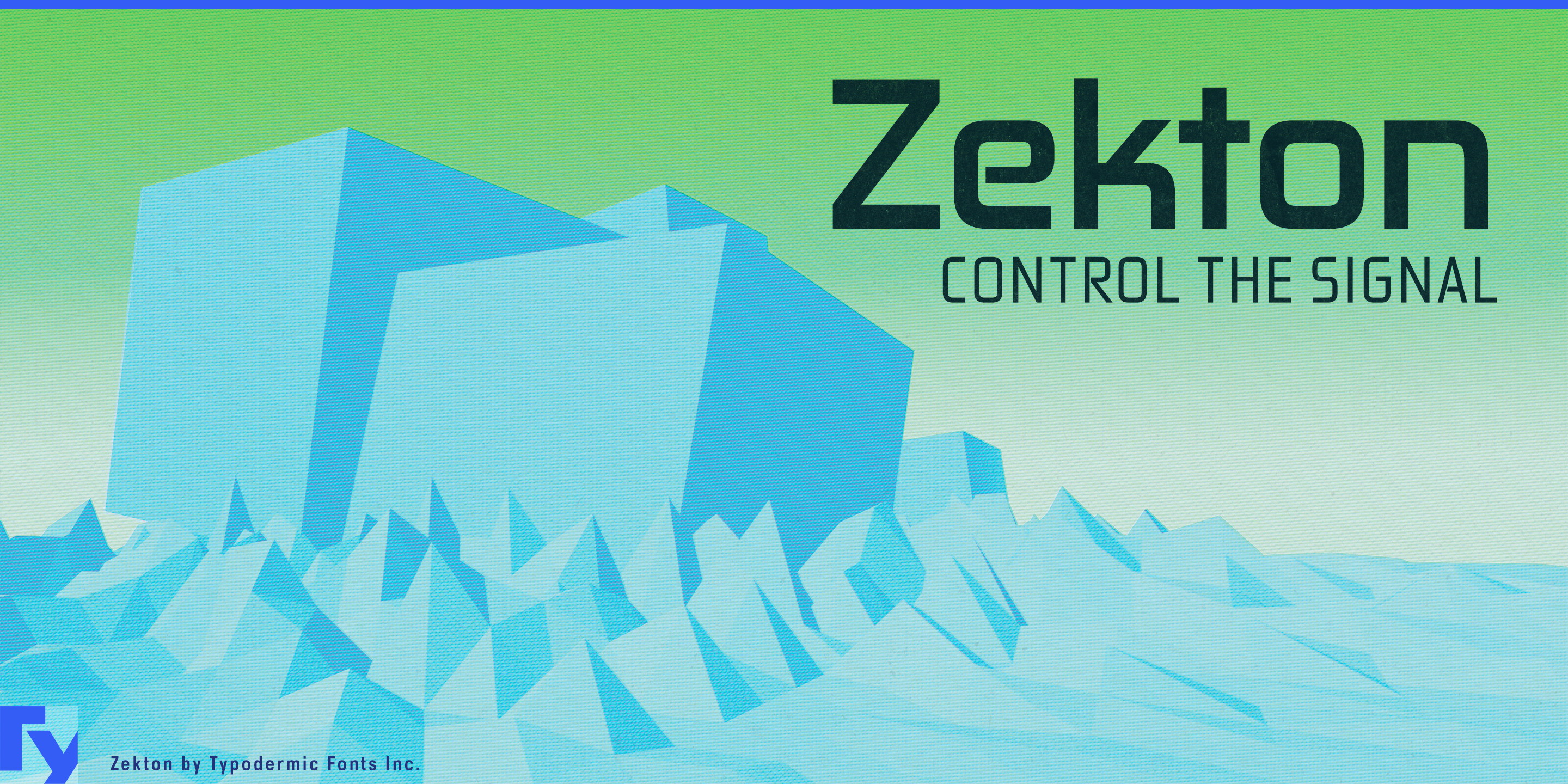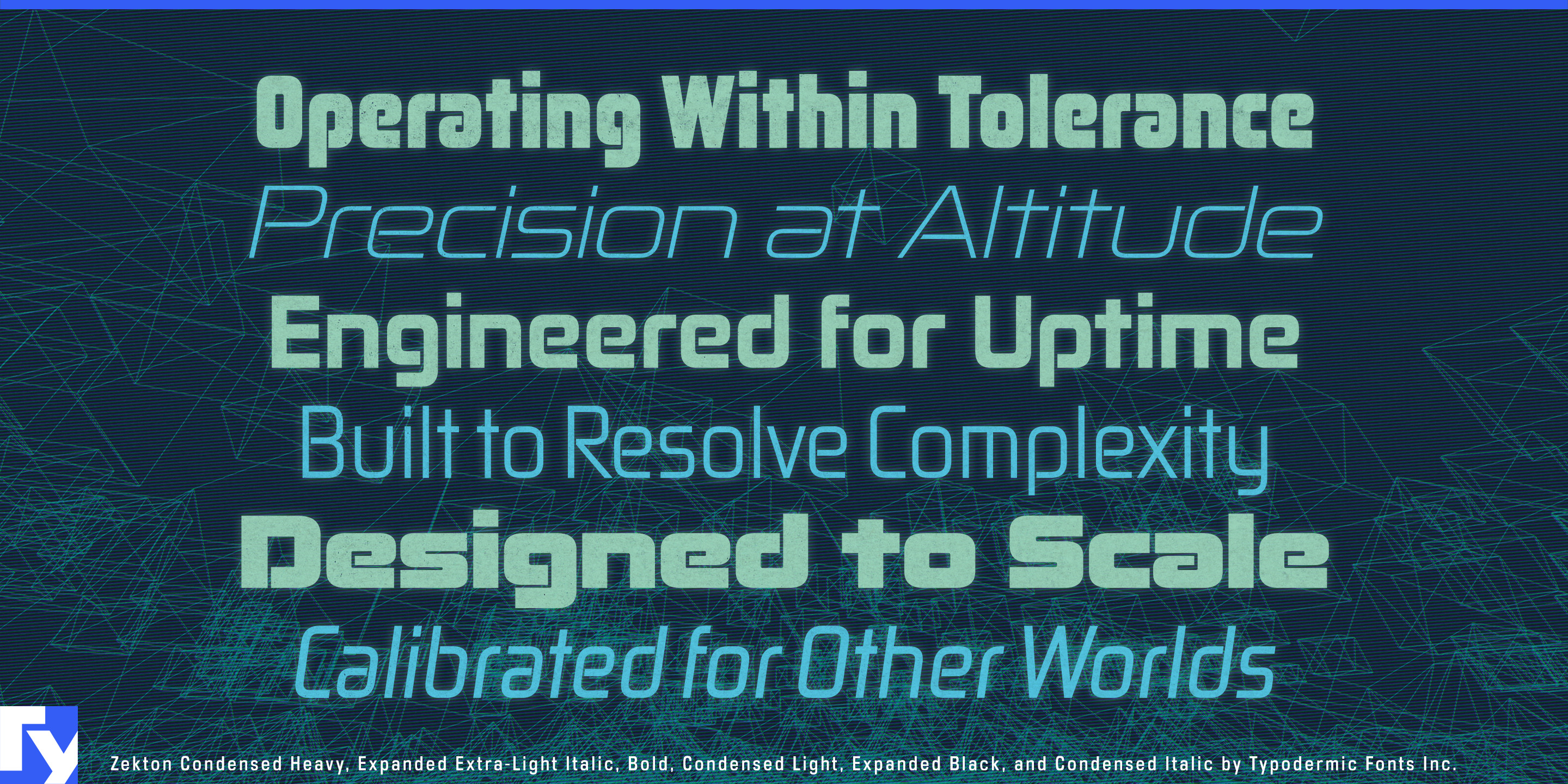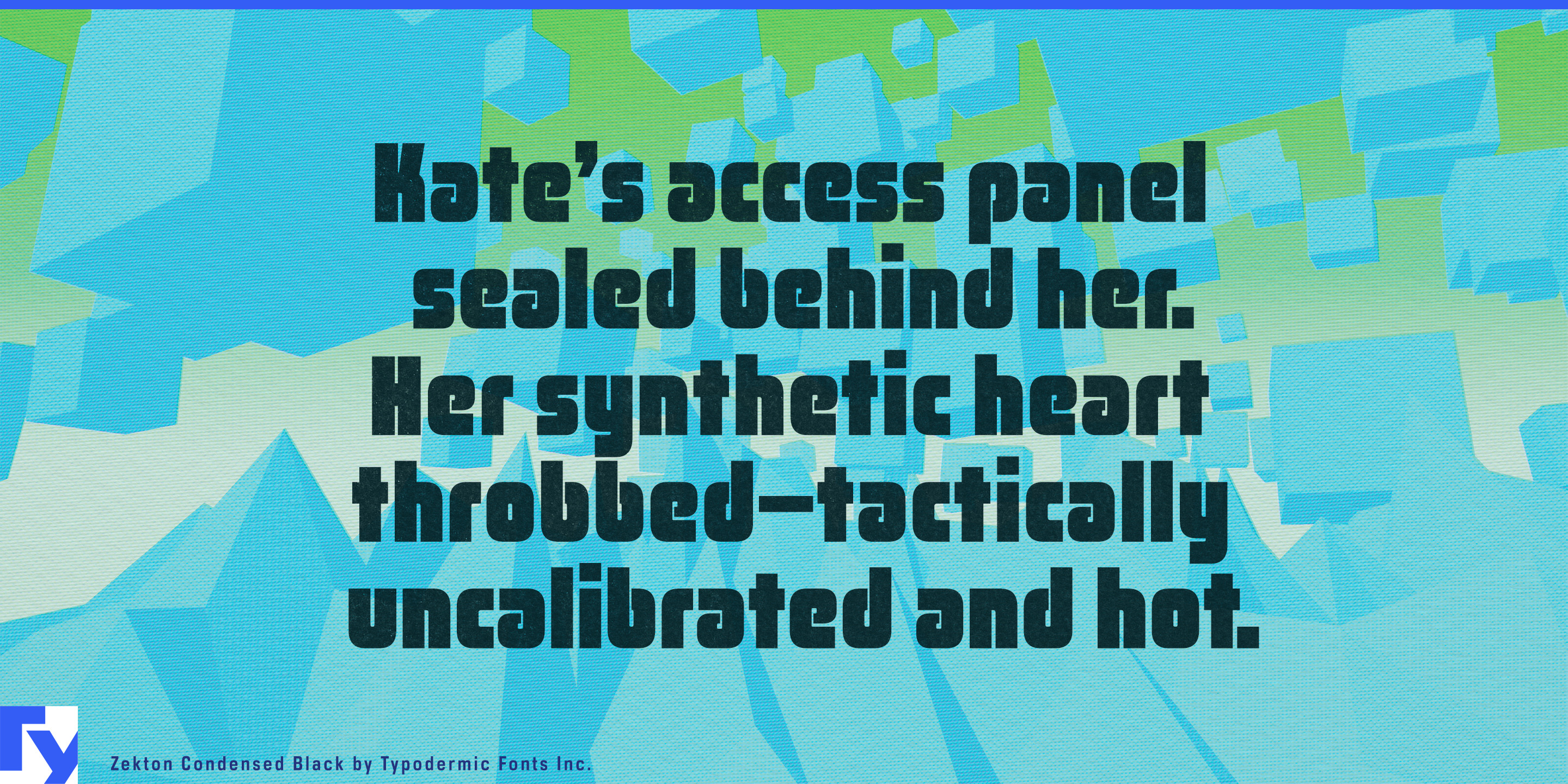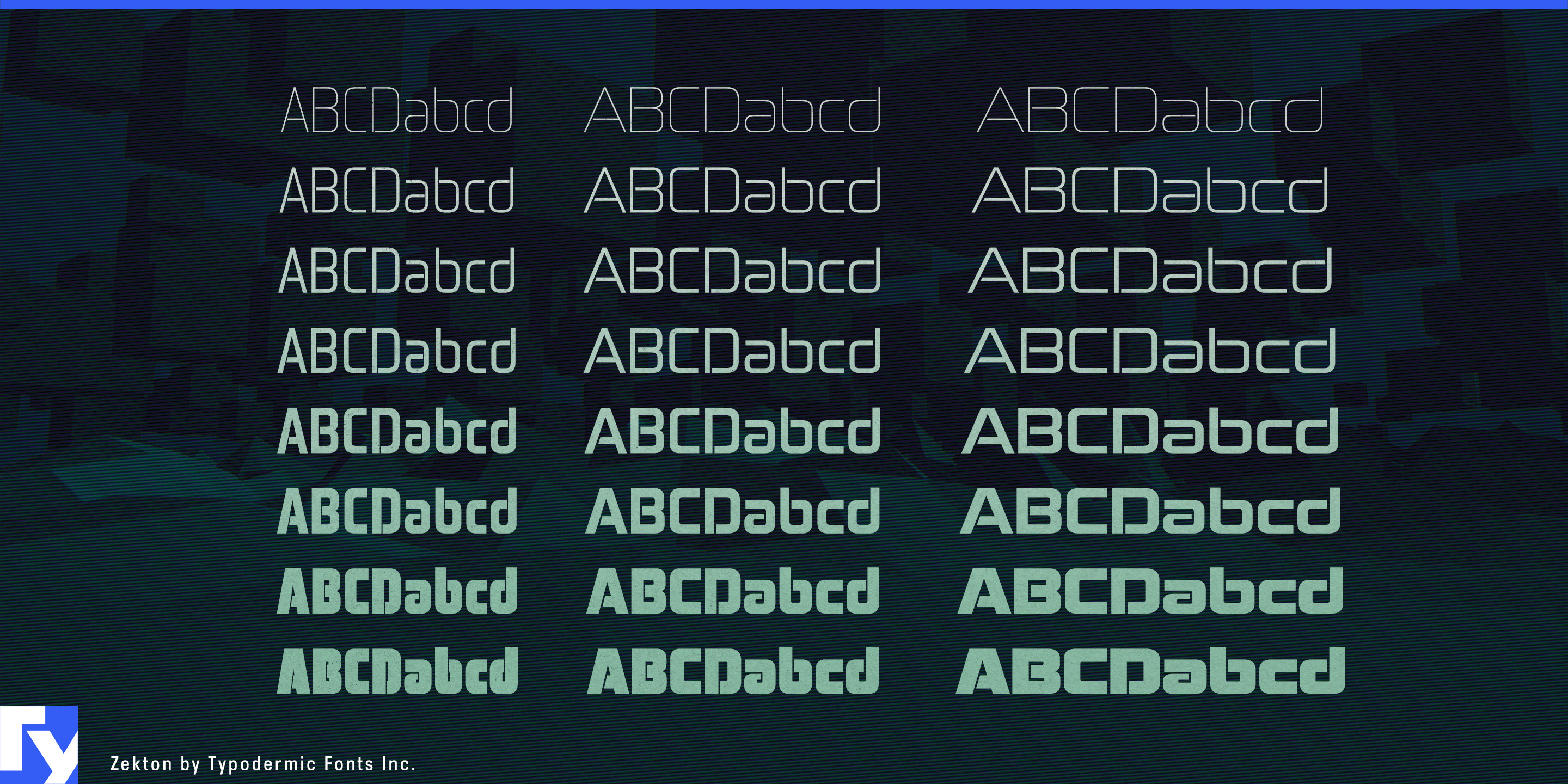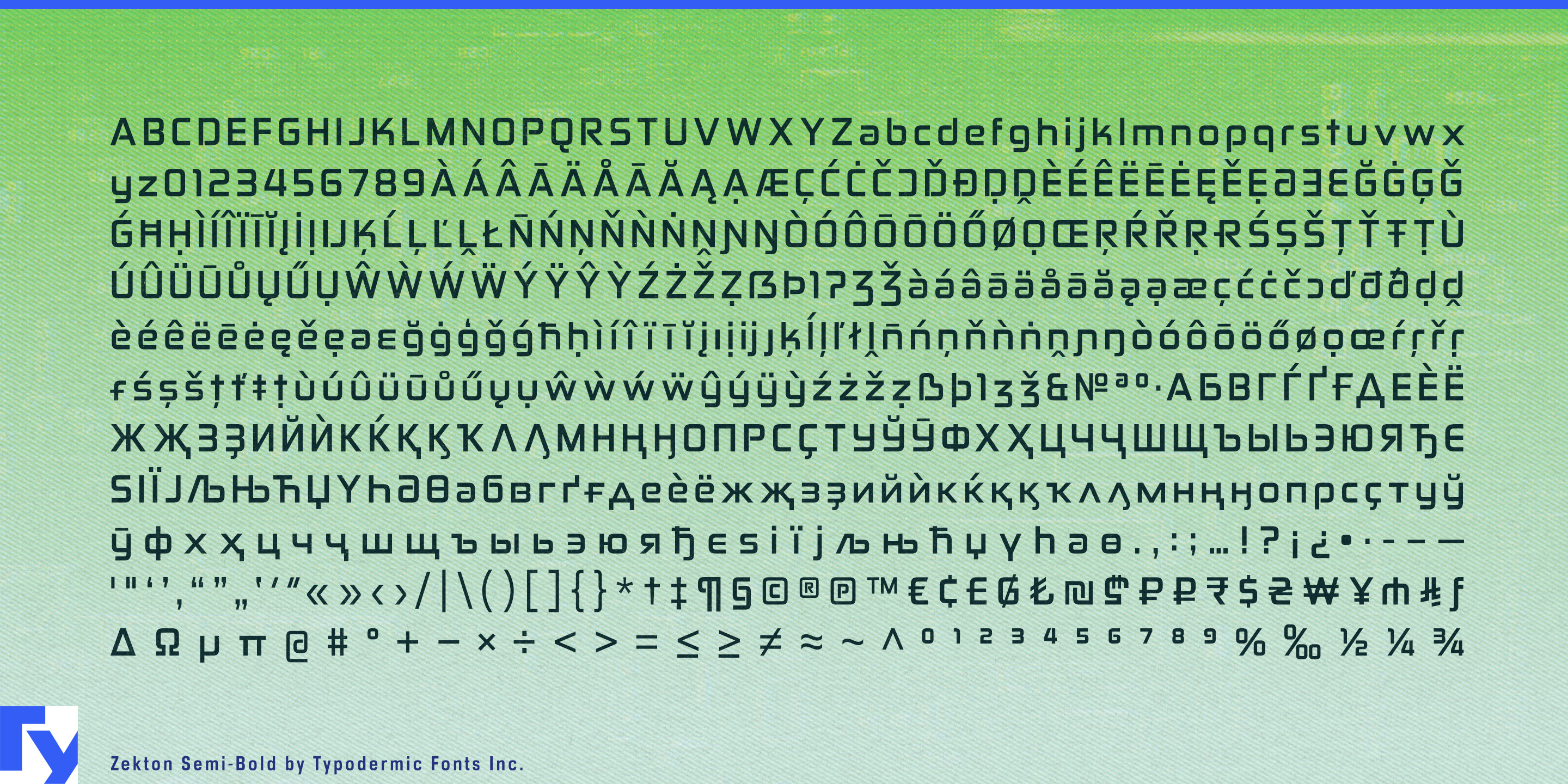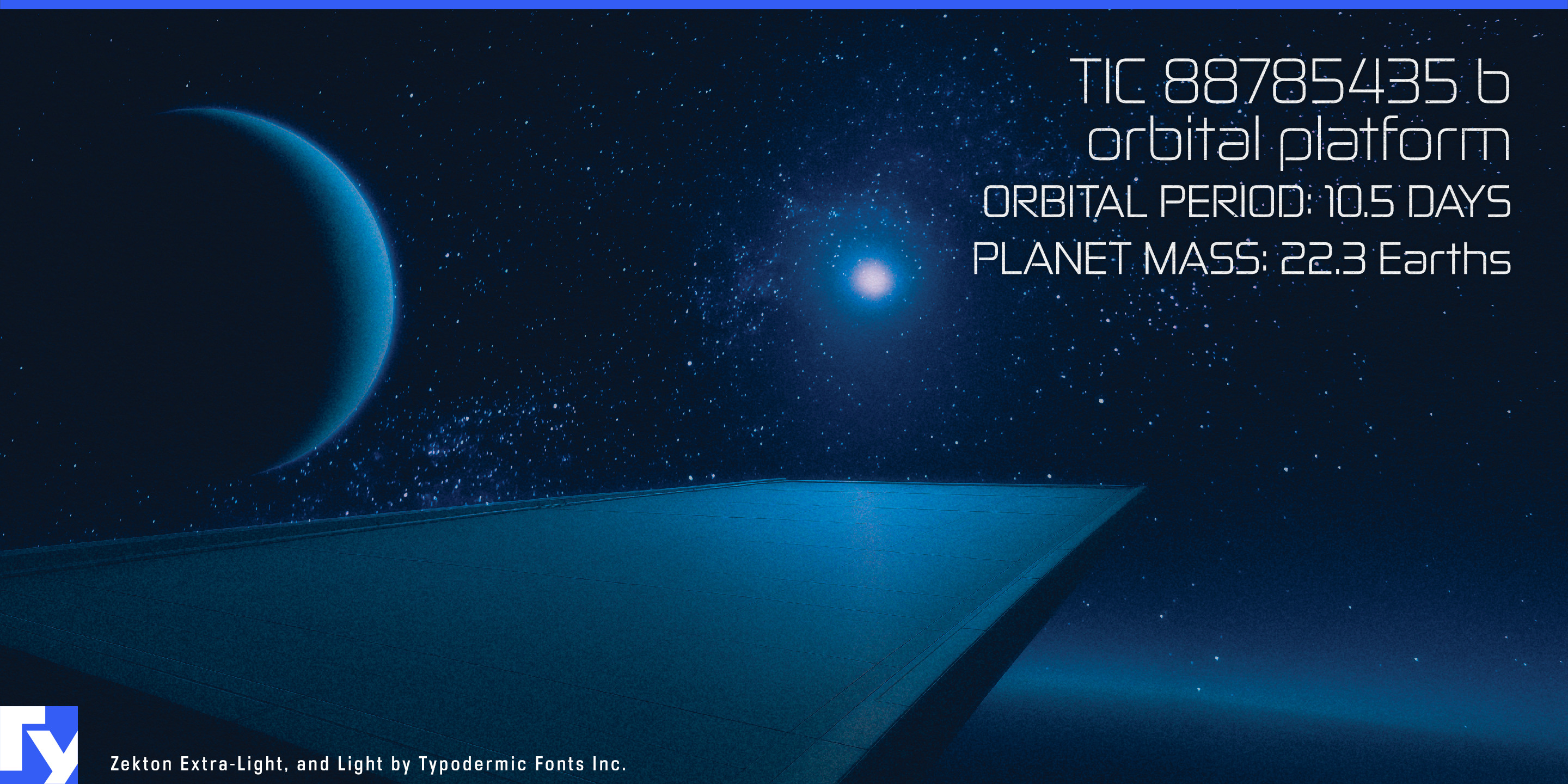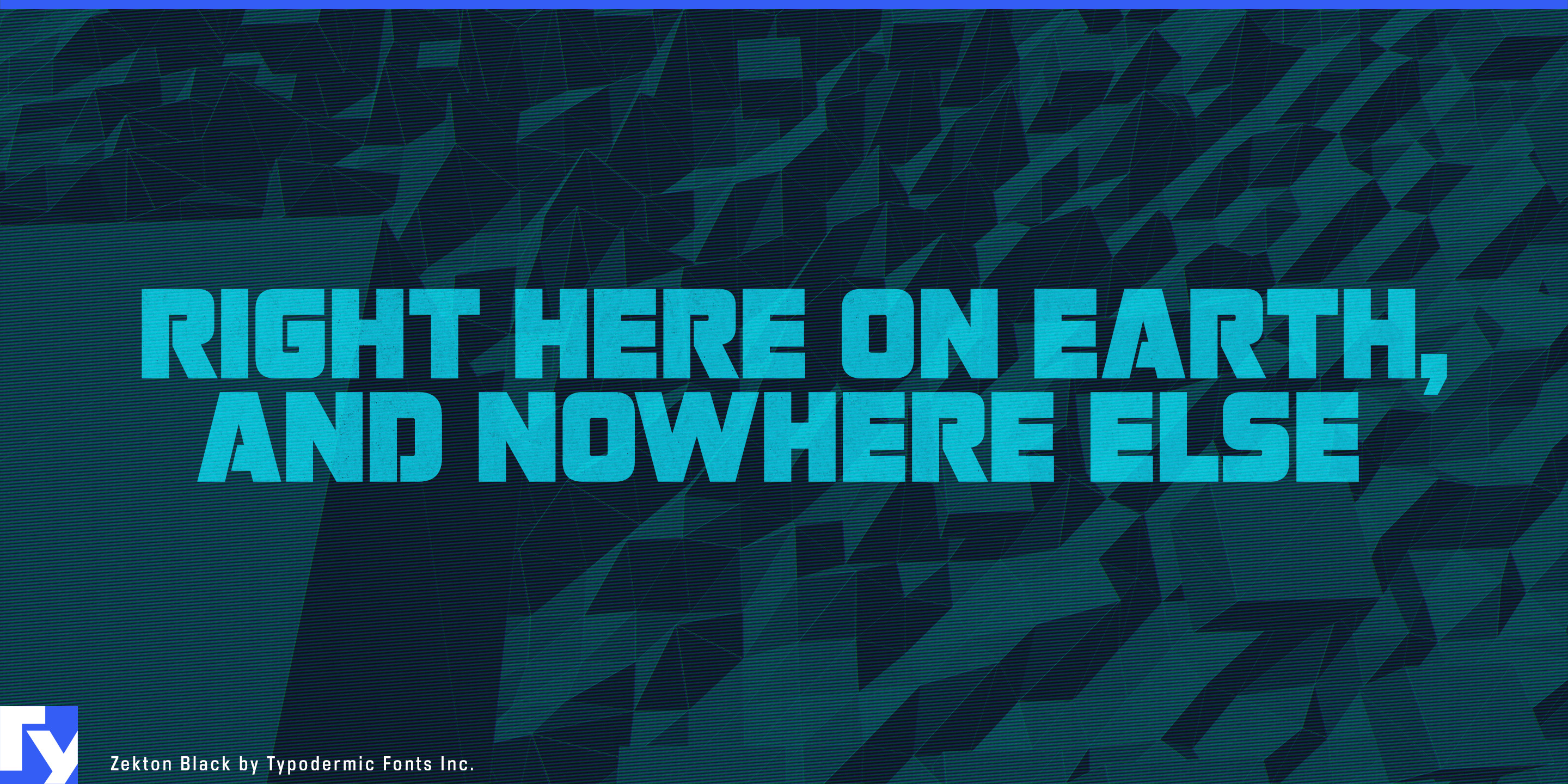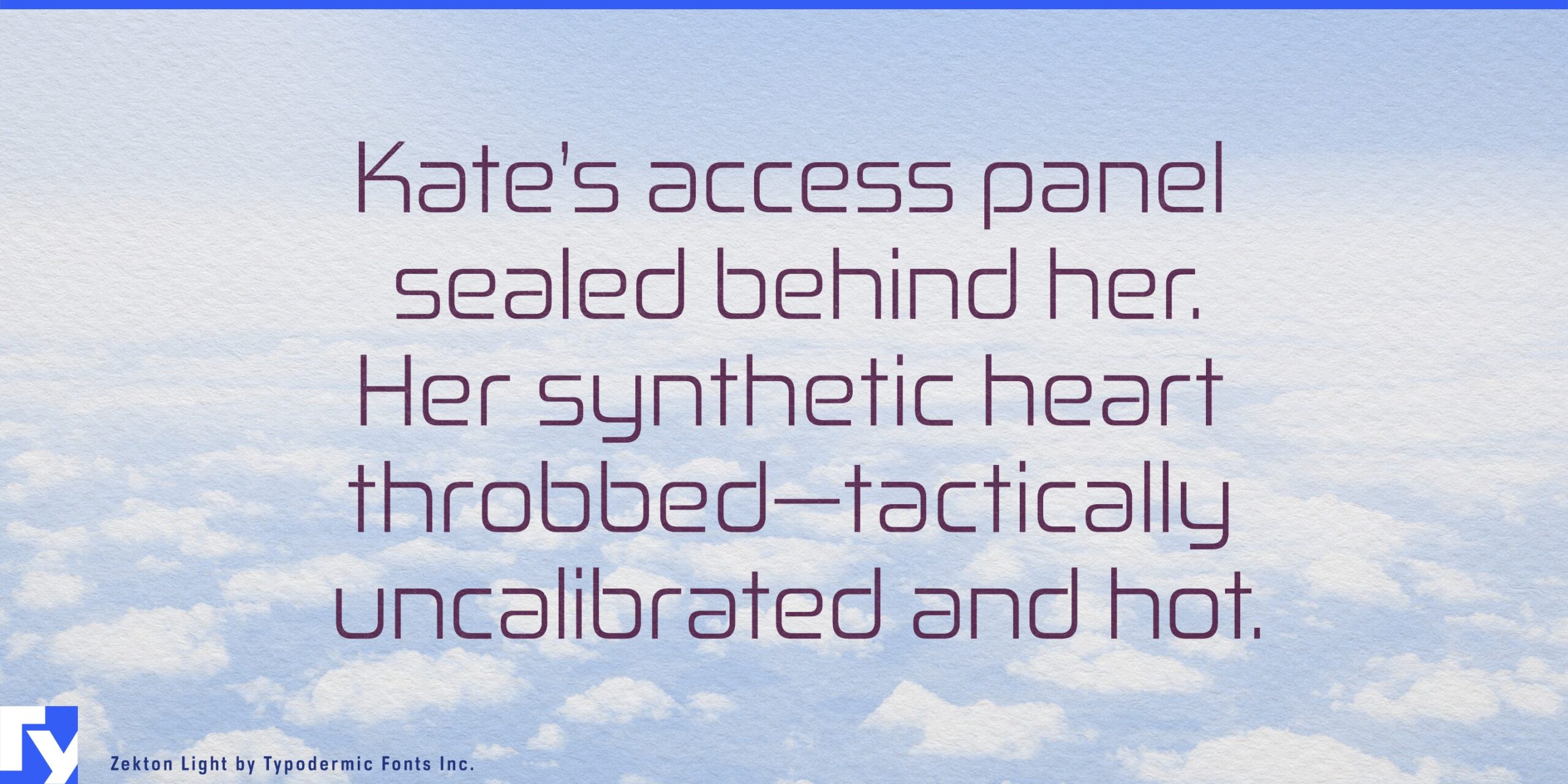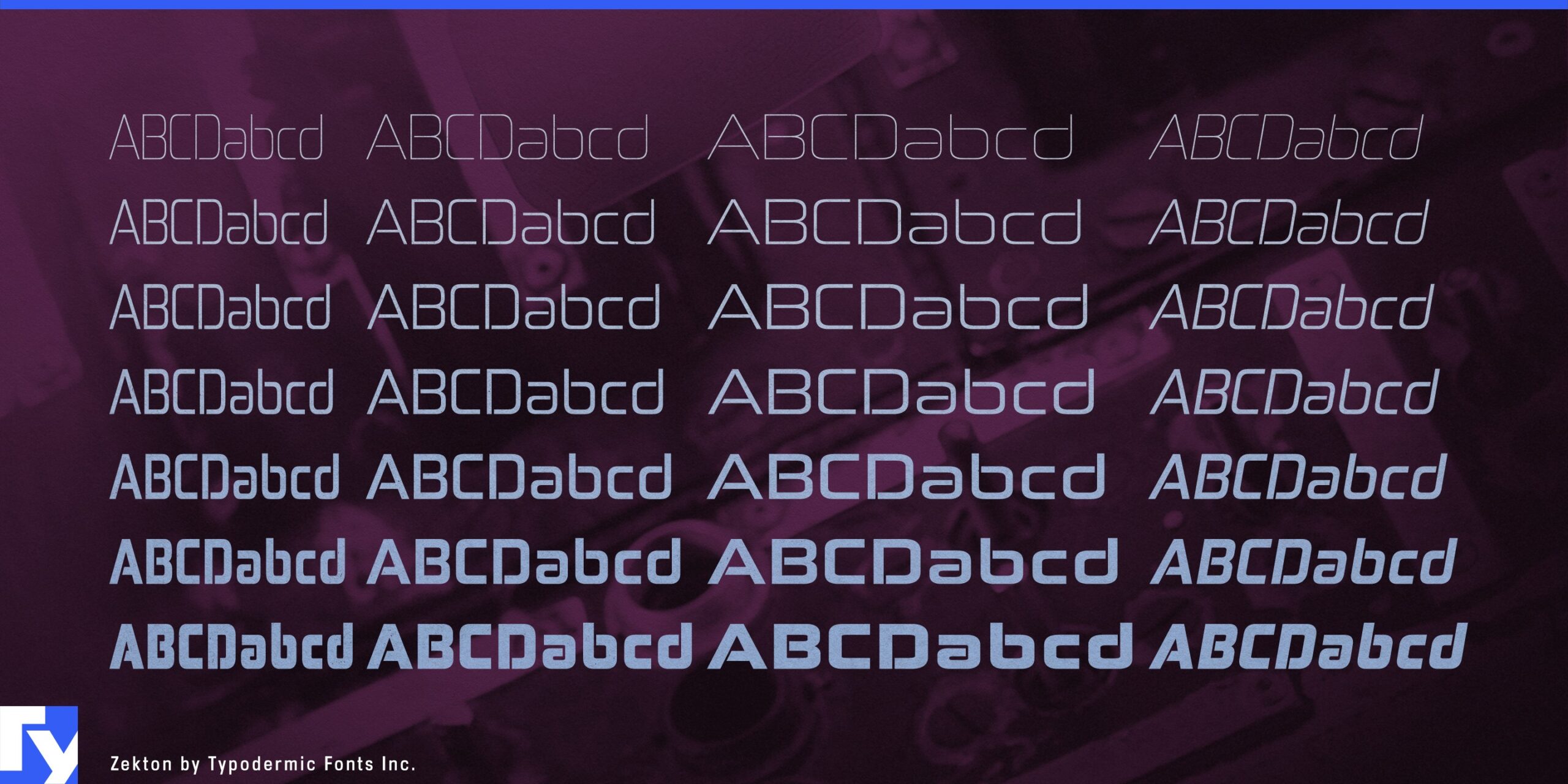
Zekton was inspired by the futuristic fonts found on electronic gadgetry. Zekton imparts a serious, high-tech look by its rounded curves and even line widths.